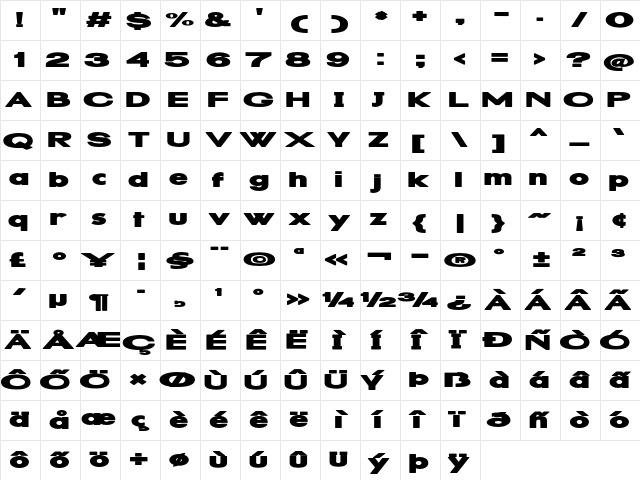
Dubble Stuff Extra-expanded Bold
Style: Extra-expanded Bold
Design Context for Dubble Stuff
Dubble Stuff is a composed and adaptable typeface that performs quietly and consistently across a wide range of design contexts. Its bold stroke weight gives it real presence on the page.